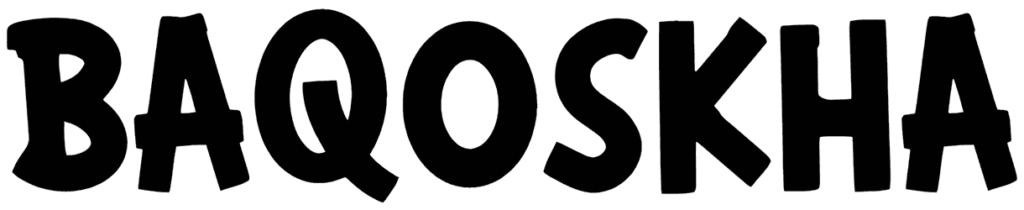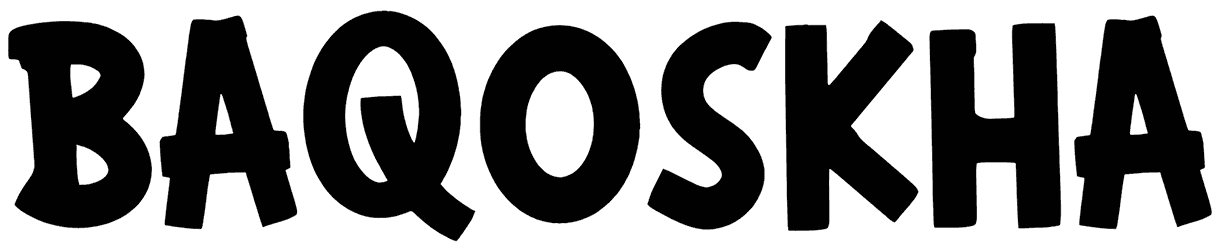
Baqoskha Font
You can cause your design to have an amiable and friendly mood. All you require is a cartoon font such as Baqoskha. This fancy font has a bold and eye-catching face that can be used for many projects, for example, posters, headers, cartoon screens, and a lot more. Baqoskha doesn’t offer lowercase letters, but can still be an interesting pickup.